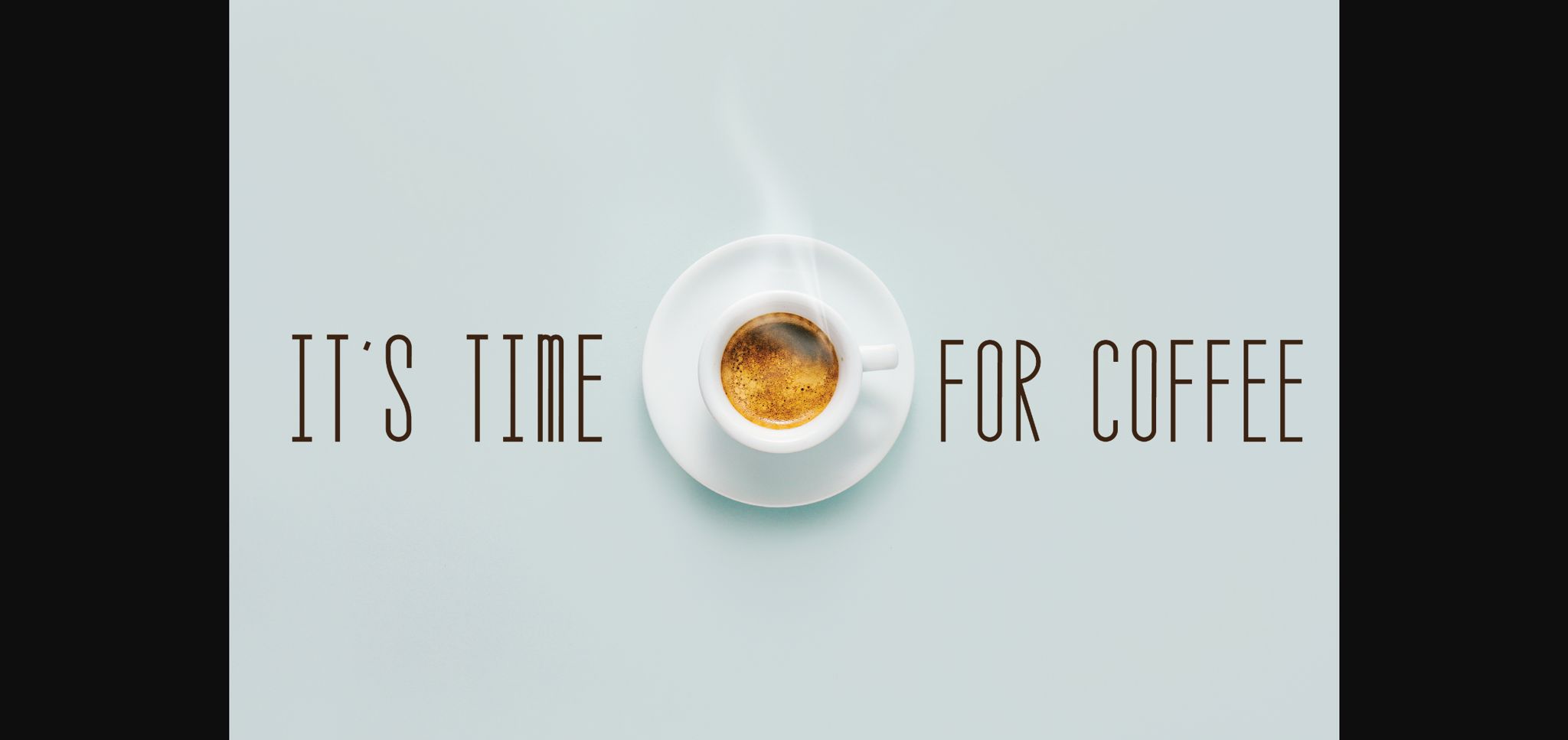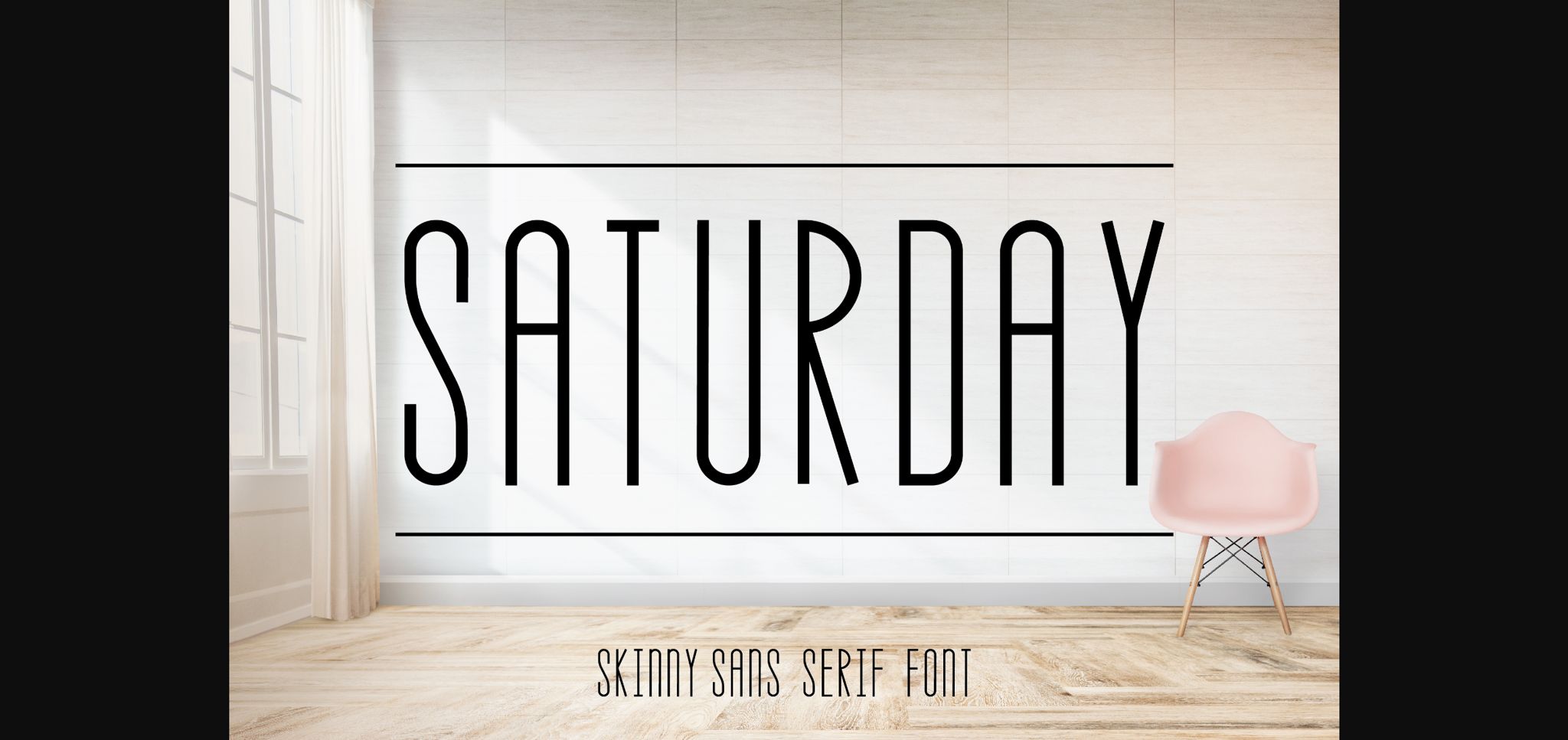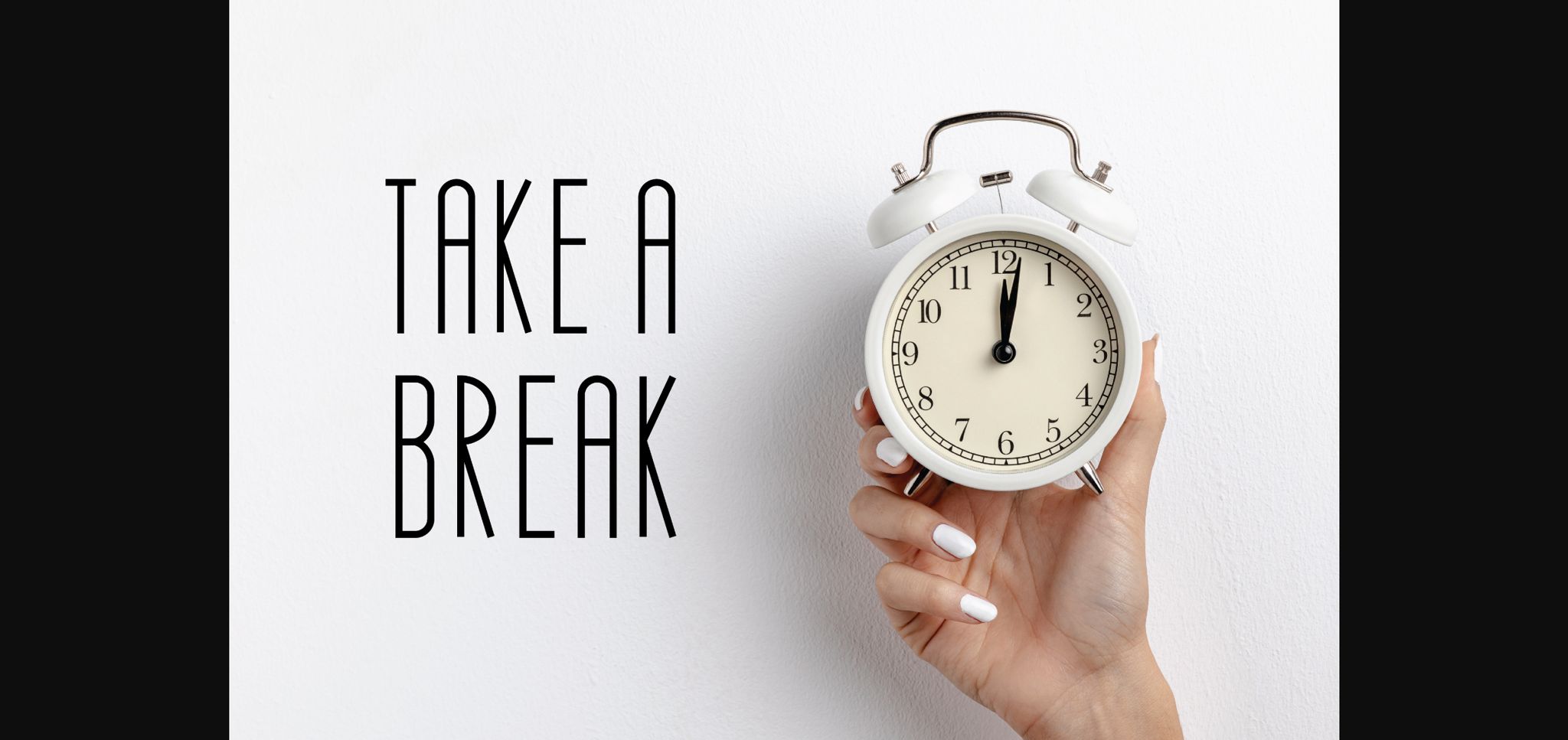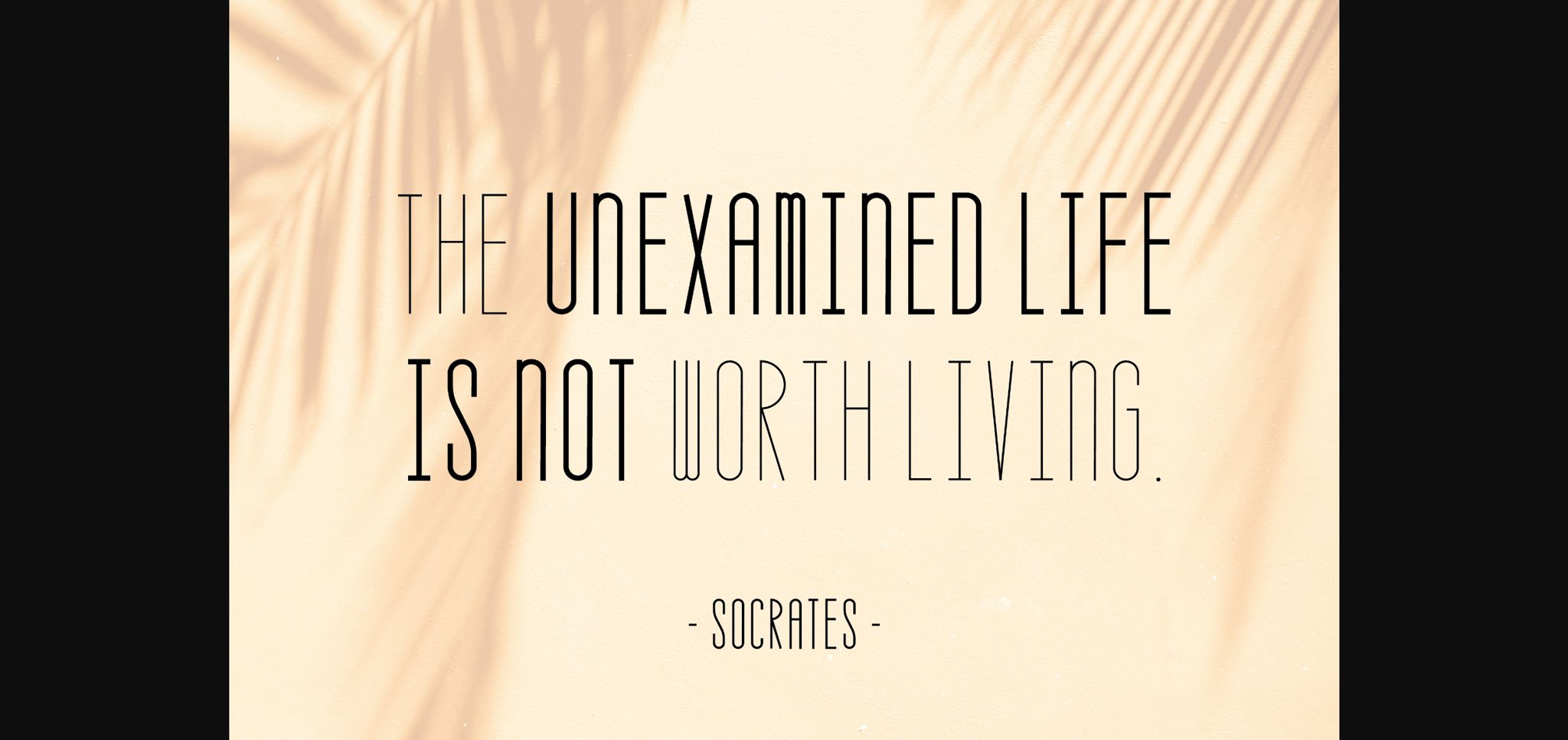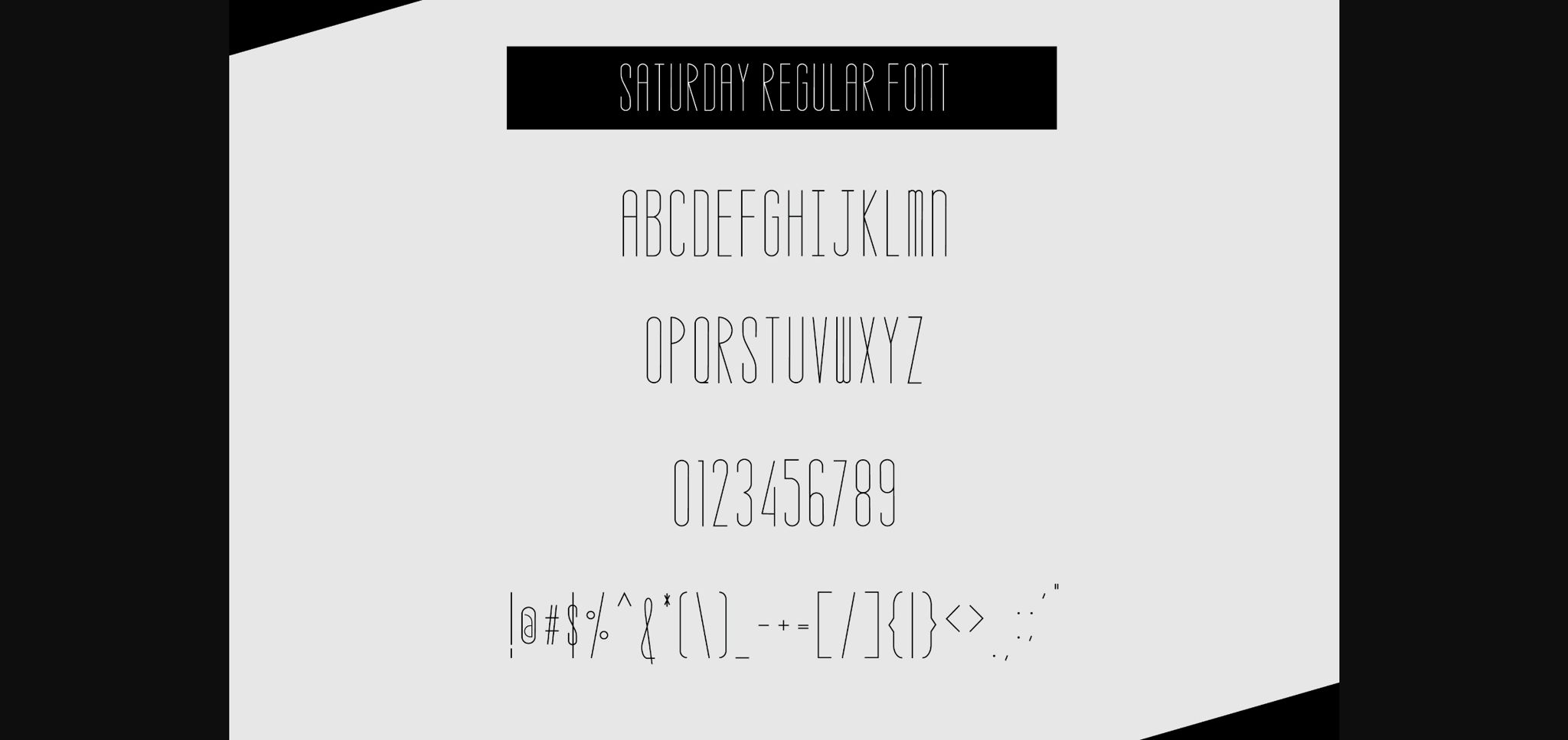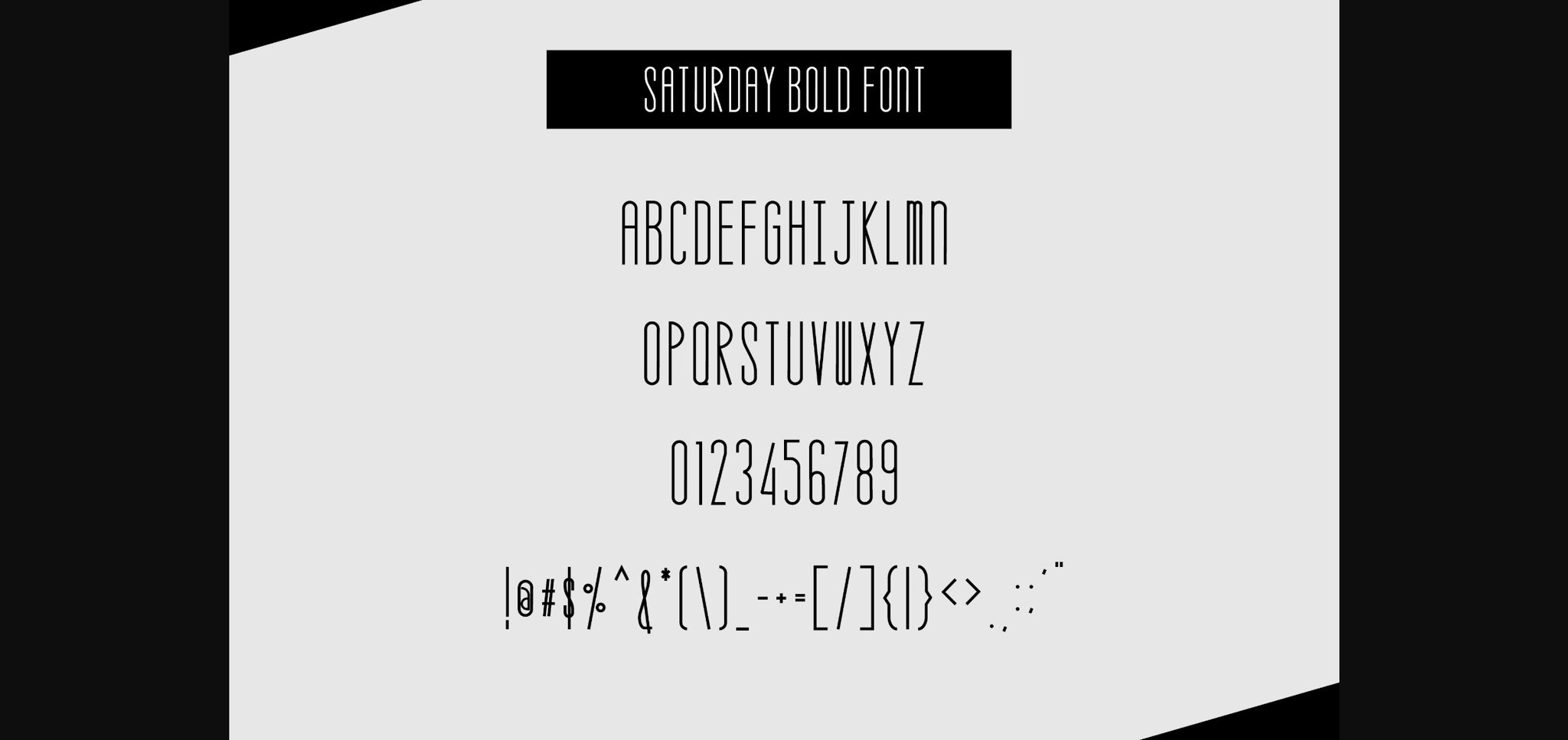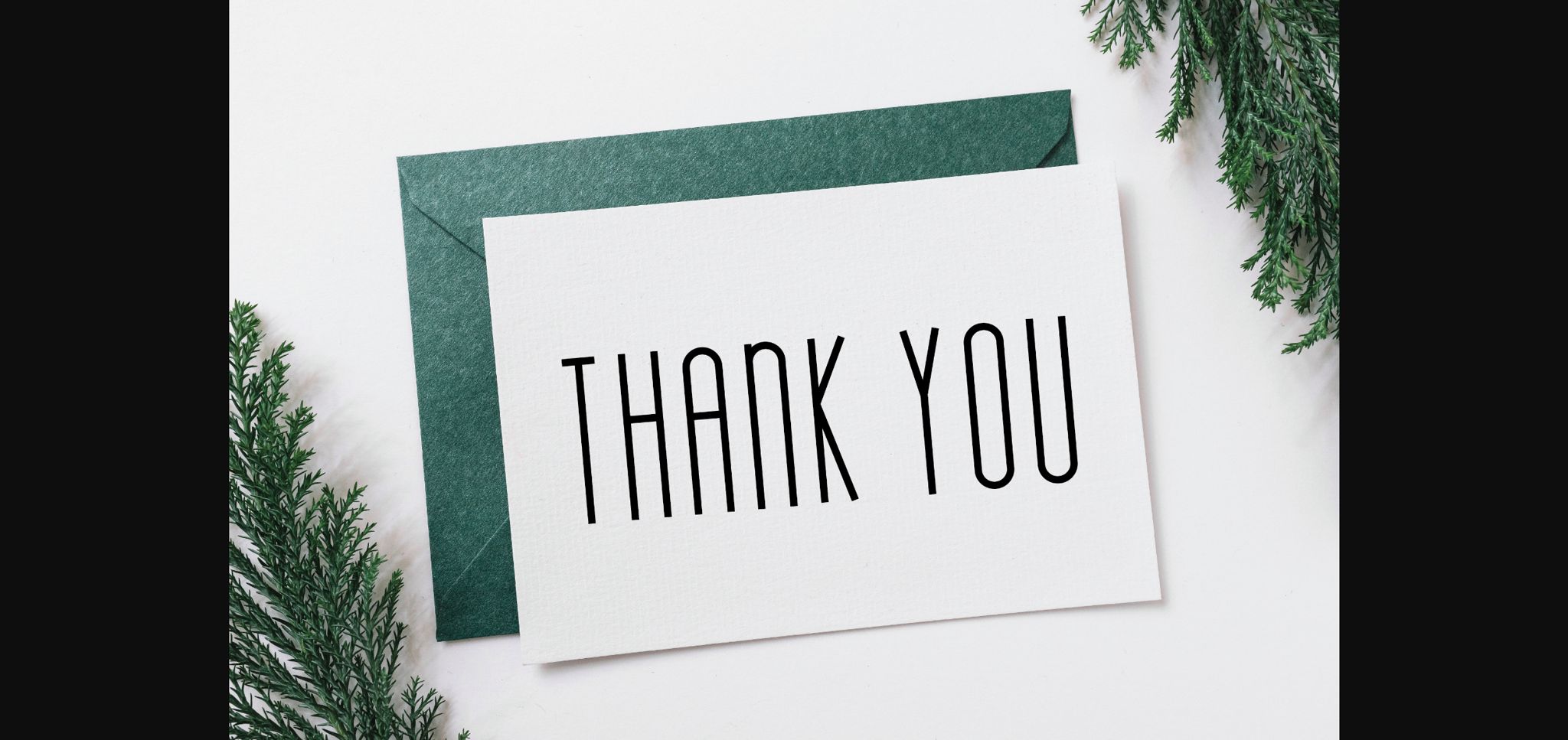
Saturday Font
Saturday is a sans serif font that exudes elegance with its refined design. Whether you’re seeking fonts for Instagram posts or calligraphy scripts for DIY projects, Saturday adds a touch of sophistication to any creative endeavor, transforming it into a work of art.
Crafted with precision, Saturday boasts clean lines and subtle details that elevate its aesthetic appeal. Its versatility makes it suitable for a wide range of applications, from digital platforms to handmade crafts. Whether used for social media graphics, wedding invitations, or branding materials, Saturday adds a sense of elegance and style to every project.
In the realm of social media, Saturday stands out as a font choice for Instagram posts, stories, and captions. Its elegant appearance captures attention and adds a touch of refinement to your feed, helping your content stand out and leave a lasting impression on your audience.
For DIY enthusiasts, Saturday serves as a versatile tool for adding elegance to handmade creations. Whether it’s personalized stationery, home decor, or scrapbooking projects, this font adds a touch of sophistication and charm to every piece. Its clean and modern aesthetic enhances the overall look and feel, making your creations truly special.
Saturday’s appeal extends beyond digital and handmade projects to professional settings as well. From business presentations to corporate branding, this font exudes professionalism and elegance, making it a valuable asset for professionals across various industries.
Embrace the elegance of Saturday and unlock its potential to elevate your creative ideas to new heights. Whether you’re a social media influencer, a DIY enthusiast, or a professional designer, Saturday offers endless possibilities for expressing yourself with style and sophistication. With Saturday by your side, every project becomes a true piece of art, leaving a lasting impression on all who encounter it.